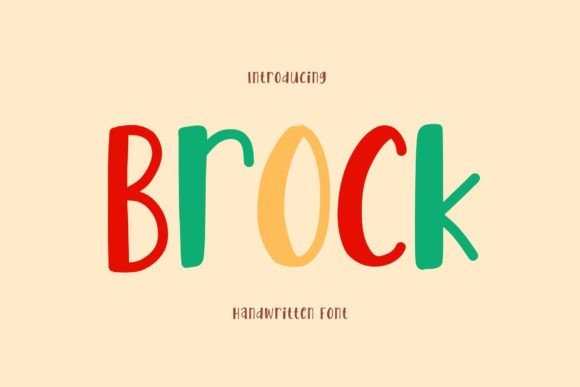
The Brock Font: A Playful and Authentic Design Companion
An Honest Review of Brock Font
What I Love About Brock Font ✨
- ✅ Playful and authentic feel: Brock Font embodies the perfect blend of whimsy and sincerity, making it ideal for projects that require a personal touch.
- ✅ Highly legible: Despite its handwritten nature, Brock Font is surprisingly easy to read, even at smaller font sizes.
- ✅ Versatile: This font is suitable for a wide range of projects, from blog posts and logos to invitations and greeting cards.
- ✅ Easy to pair: Brock Font pairs well with both serif and sans-serif fonts, making it a great addition to any design.
While Brock Font is an excellent choice for many projects, it’s not without its limitations. For instance:
- ⚠️ Limited formal applications: Due to its playful nature, Brock Font may not be the best choice for formal or corporate projects.
- ⚠️ May not work well with very long texts: While legible, Brock Font may become tiresome to read in large blocks of text.
The Story Behind Brock Font
Brock Font was designed with the intention of creating a playful, yet authentic font that could be used in a variety of creative projects. The designer aimed to craft a font that would evoke a sense of whimsy and friendliness, while still being legible and easy to read.
| Font Name | Brock Font |